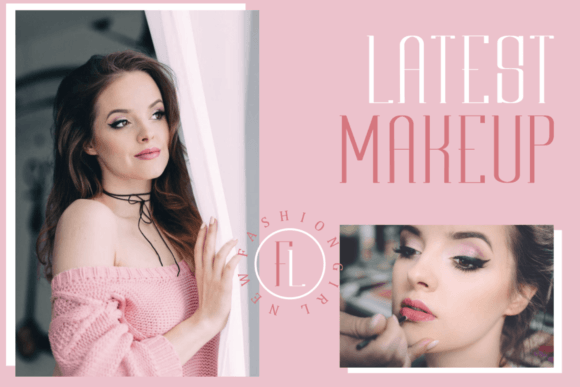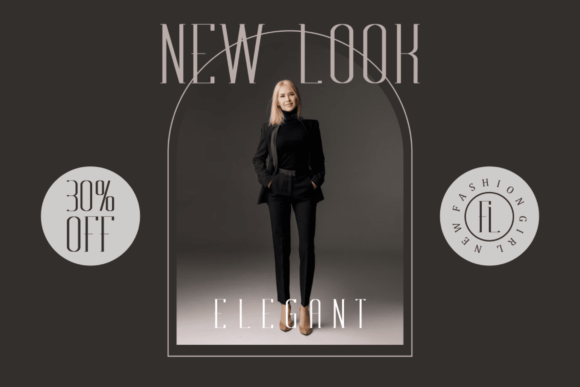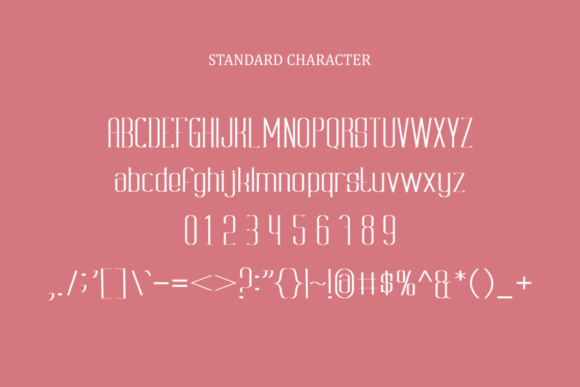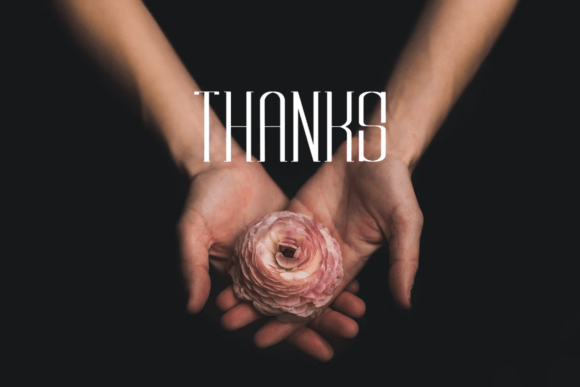
The Designer’s Delight: Flokerlen Font
Ah, the thrill of working on a design project, and then… font paralysis. You know, that moment when you’re stuck scrolling through font libraries, searching for the perfect match. I recall a particularly frustrating experience with a client who wanted a stylish, serif display font that would elevate their branding. After hours of searching, I stumbled upon Flokerlen Font, and it was love at first sight! 💕
Flokerlen is a stylish serif display font that can add that special touch to any design idea you can think of. Its trendy and elegant vibe makes it perfect for designers, crafters, and creative hobbyists looking to make a statement.
What I Love About Flokerlen ✨
- 💯 Unique character set: Flokerlen boasts an impressive range of characters, making it versatile for various design projects.
- ✅ Elegant and trendy: This font seamlessly blends classic serif elements with modern flair, perfect for sophisticated designs.
- 🎨 Highly customizable: With OpenType features and glyphs, you can experiment with different styles to match your project’s tone.
- ⚠️ Limited use in body text: Due to its decorative nature, Flokerlen might not be the best choice for lengthy paragraphs.
- ⚠️ Requires design expertise: To get the most out of Flokerlen, some knowledge of typography and design principles is necessary.
The Story Behind Flokerlen
Flokerlen was designed by a talented typographer who drew inspiration from classic serif fonts and modern design trends. The goal was to create a versatile, elegant font that would cater to the needs of designers and creative professionals. Although the designer’s story might be fictional, the font’s impact on the design community is real.
Q: What type of projects is Flokerlen best suited for?
A: Flokerlen excels in projects that require a touch of elegance and sophistication, such as branding, editorial design, packaging, and titles.
Q: Is Flokerlen compatible with non-Latin languages?
A: Flokerlen’s character set primarily supports Latin-based languages. If you need to use it for non-Latin languages, check the font’s language support and compatibility.